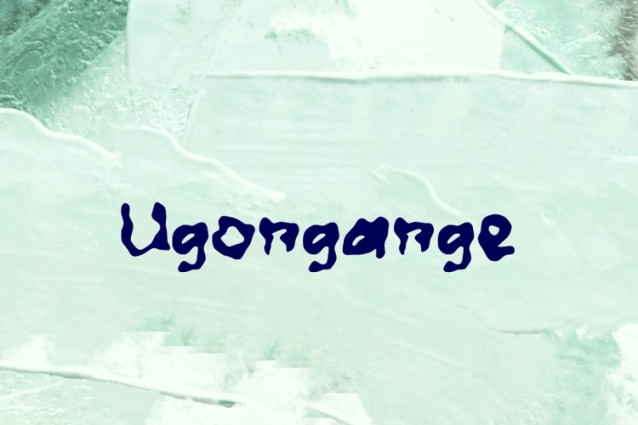
Ugongange Font
Ugongange Font is a chunky, comic, and cartoon display font. With its neat and joyful personality, this font will enhance any project you wish to create!